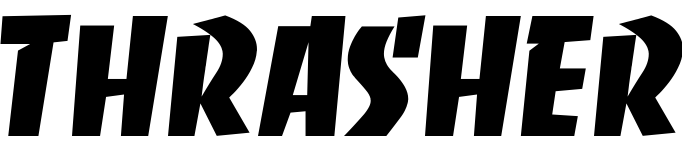
Thrasher Font
BookThrasher is a skateboarding magazine founded in 1981 that covers skate culture and news. It has also expanded into clothing and other merchandise.
Banco, an inclined titling typeface created by Roger Excoffon for the Fonderie Olive foundry in 1951, is the font used for the Thrasher logo on the magazine's cover. You can view more details about it here.